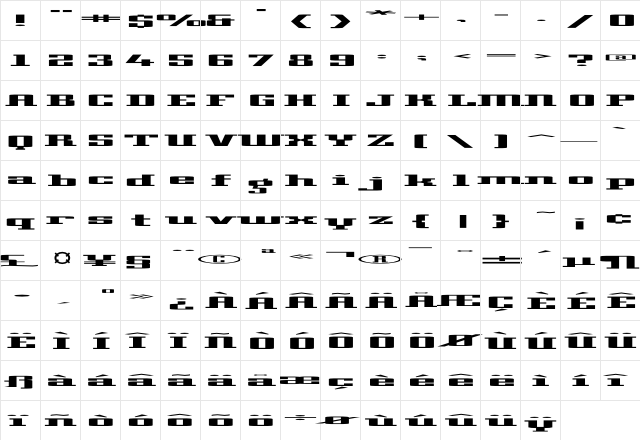
Gadzooks Squared
Design Context for Gadzooks Typeface
Gadzooks is a composed and adaptable typeface that performs quietly and consistently across a wide range of design contexts.